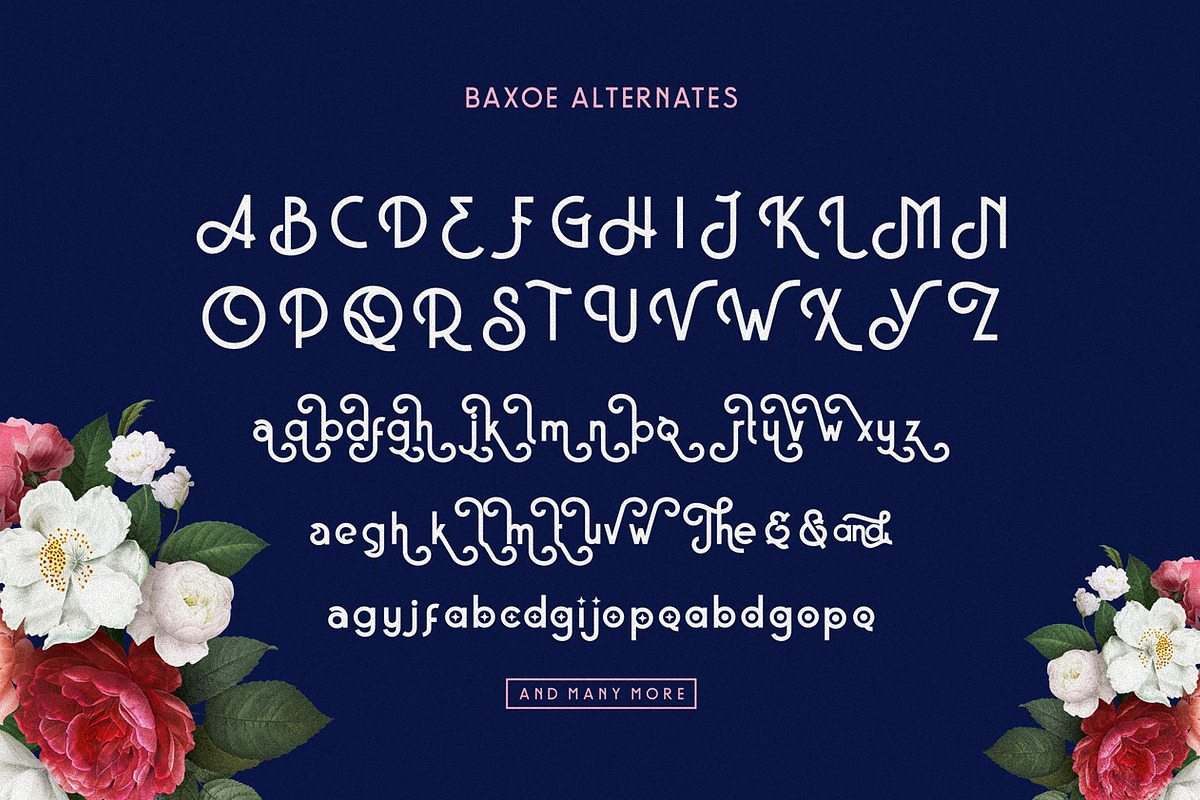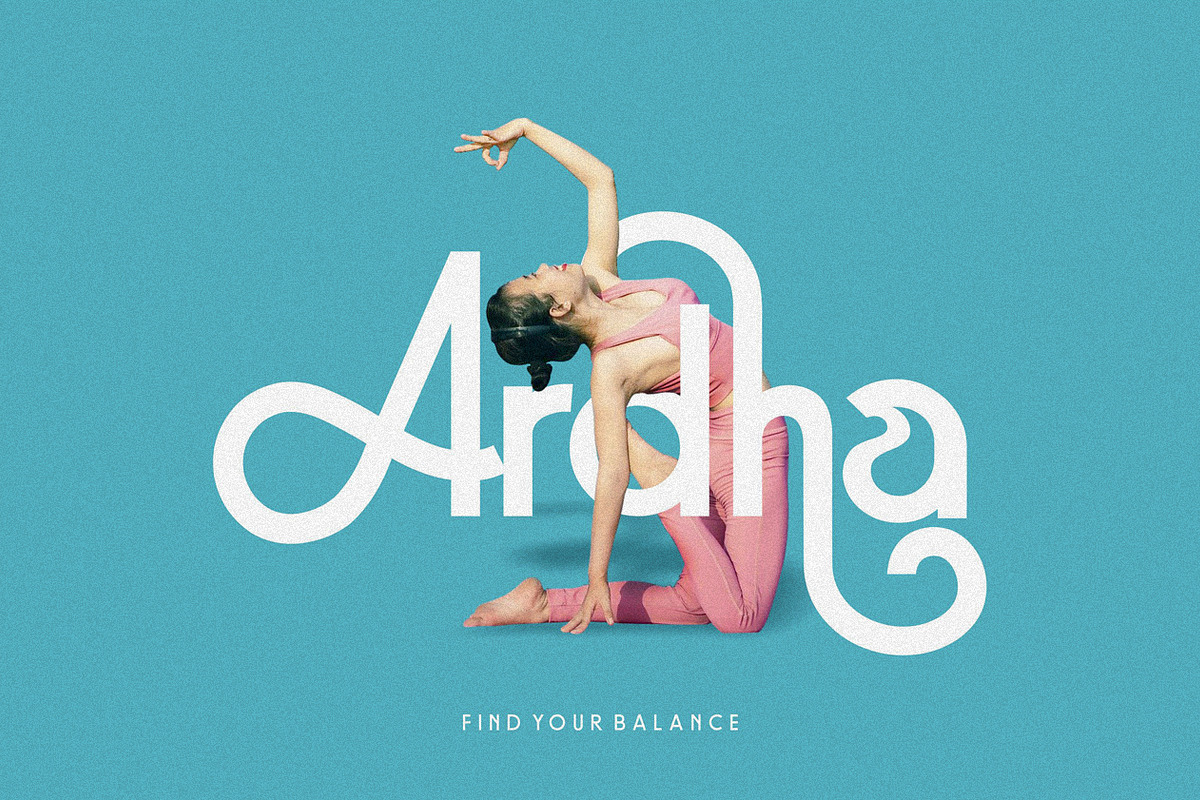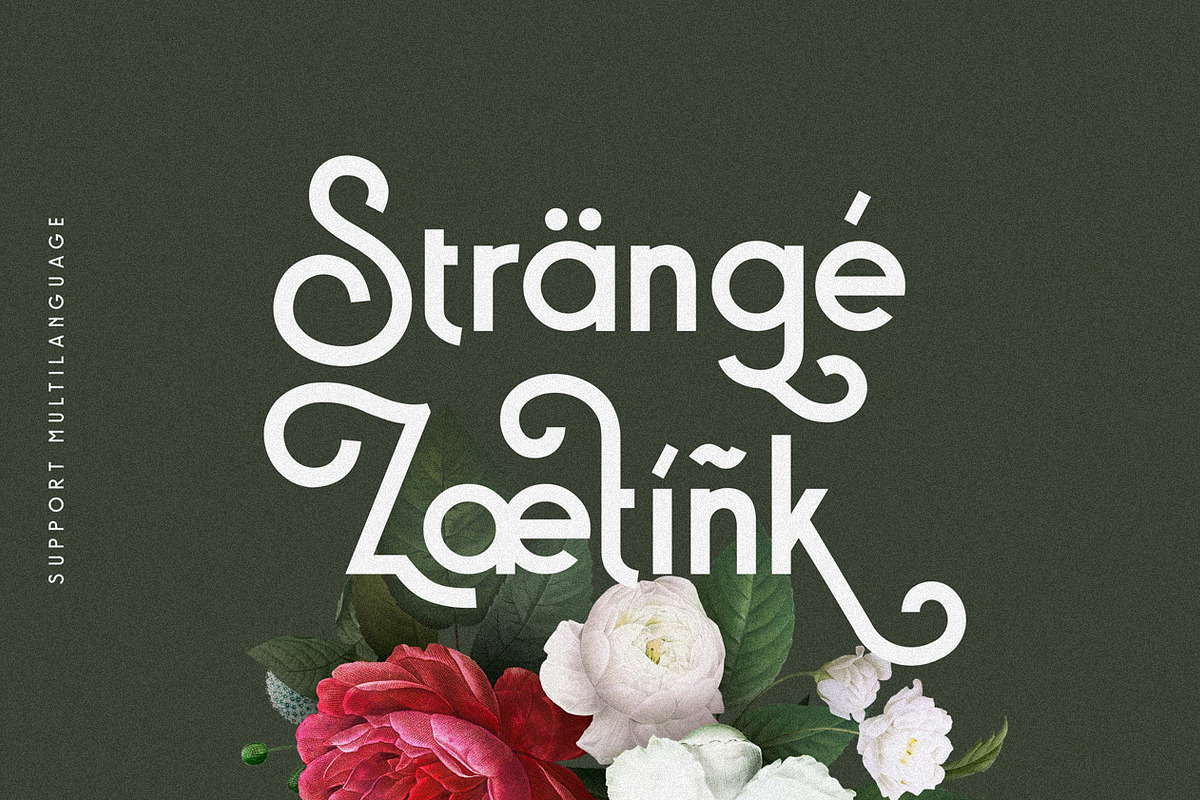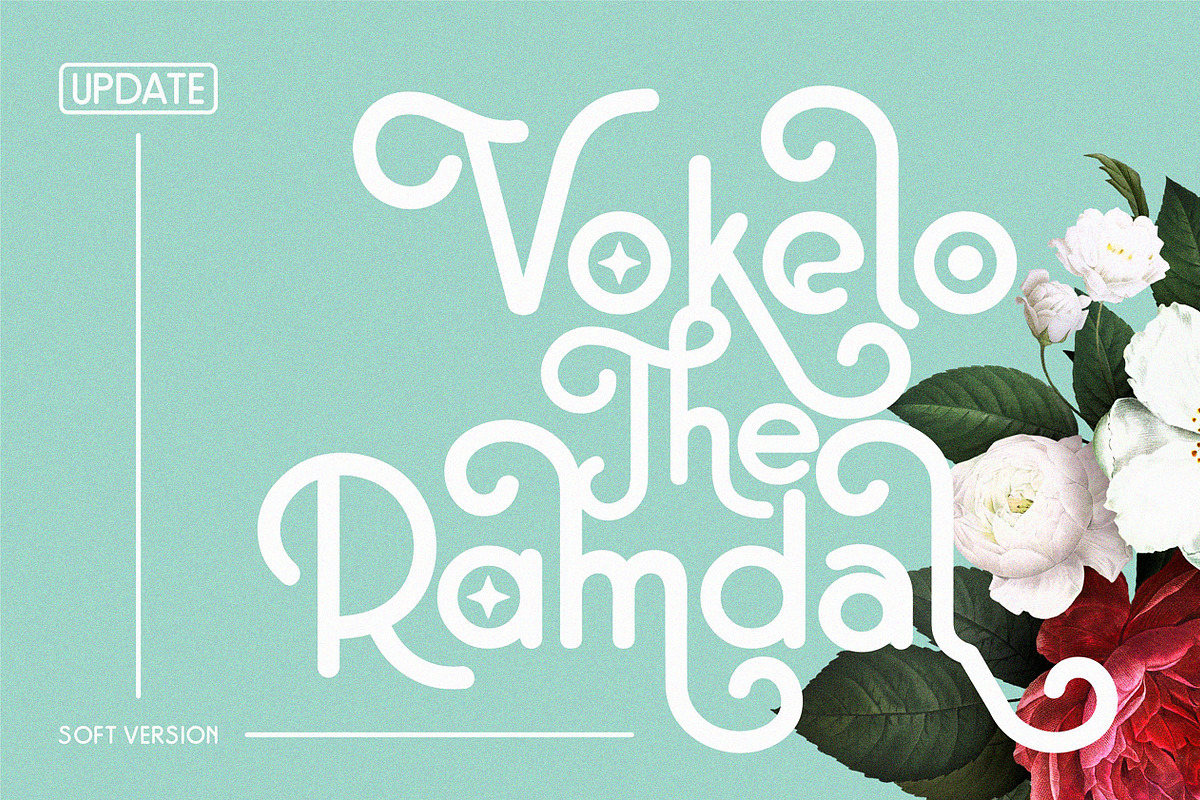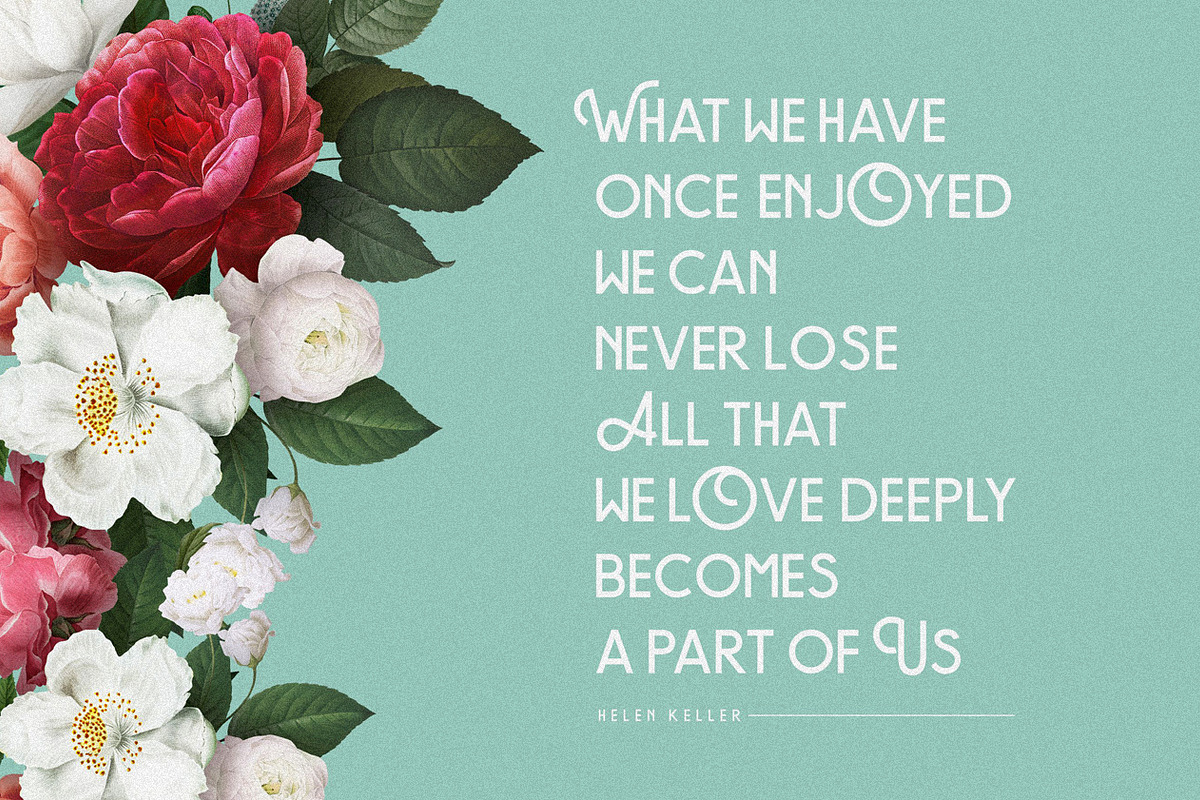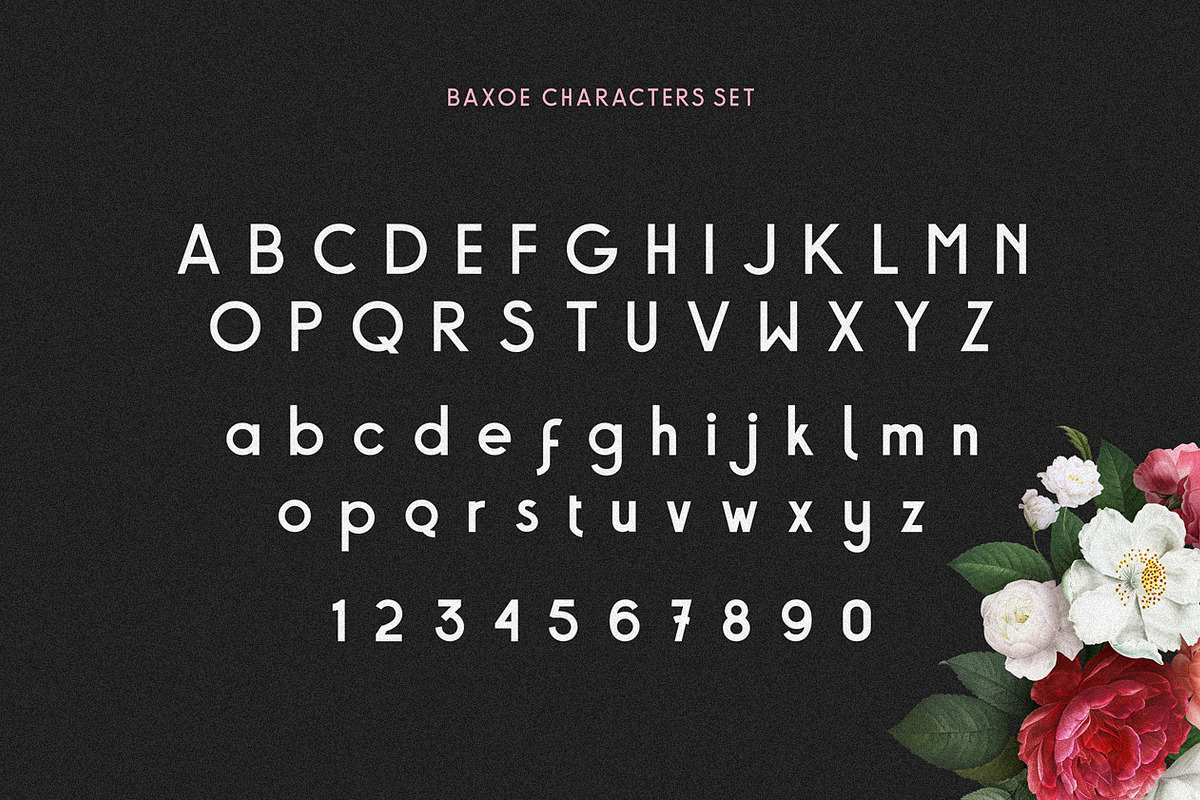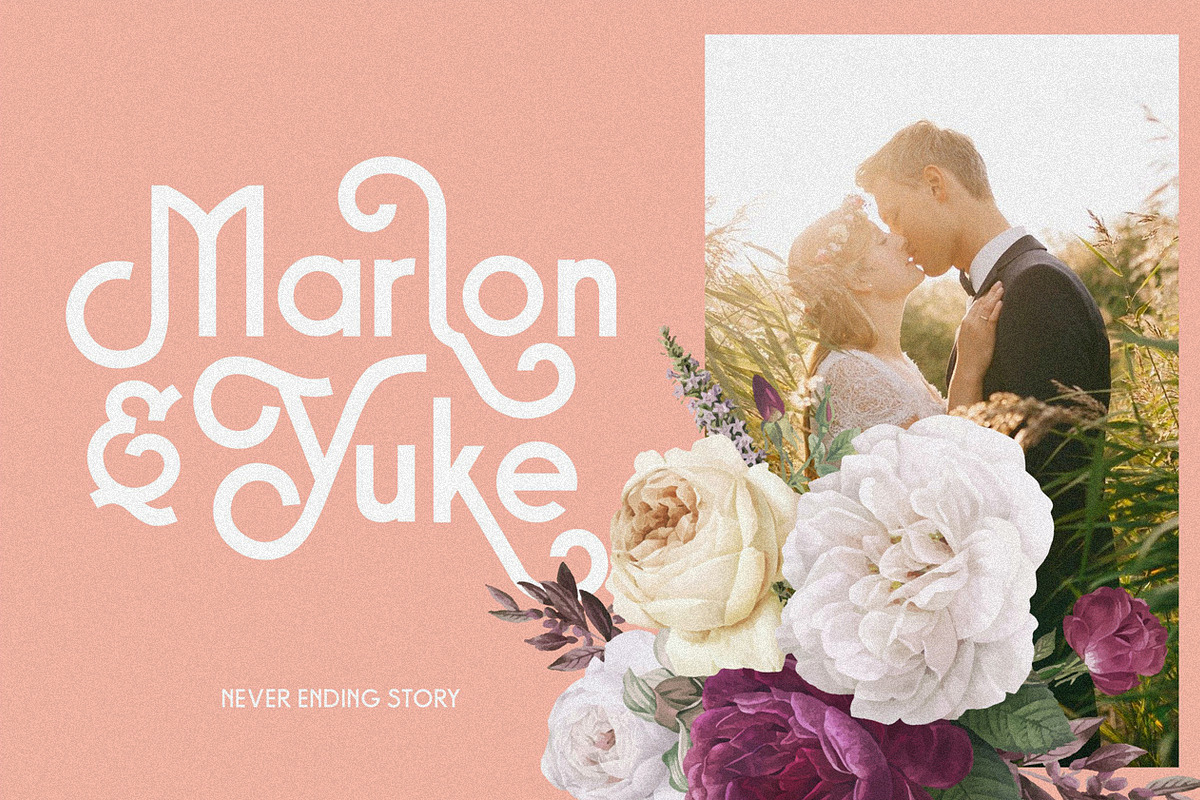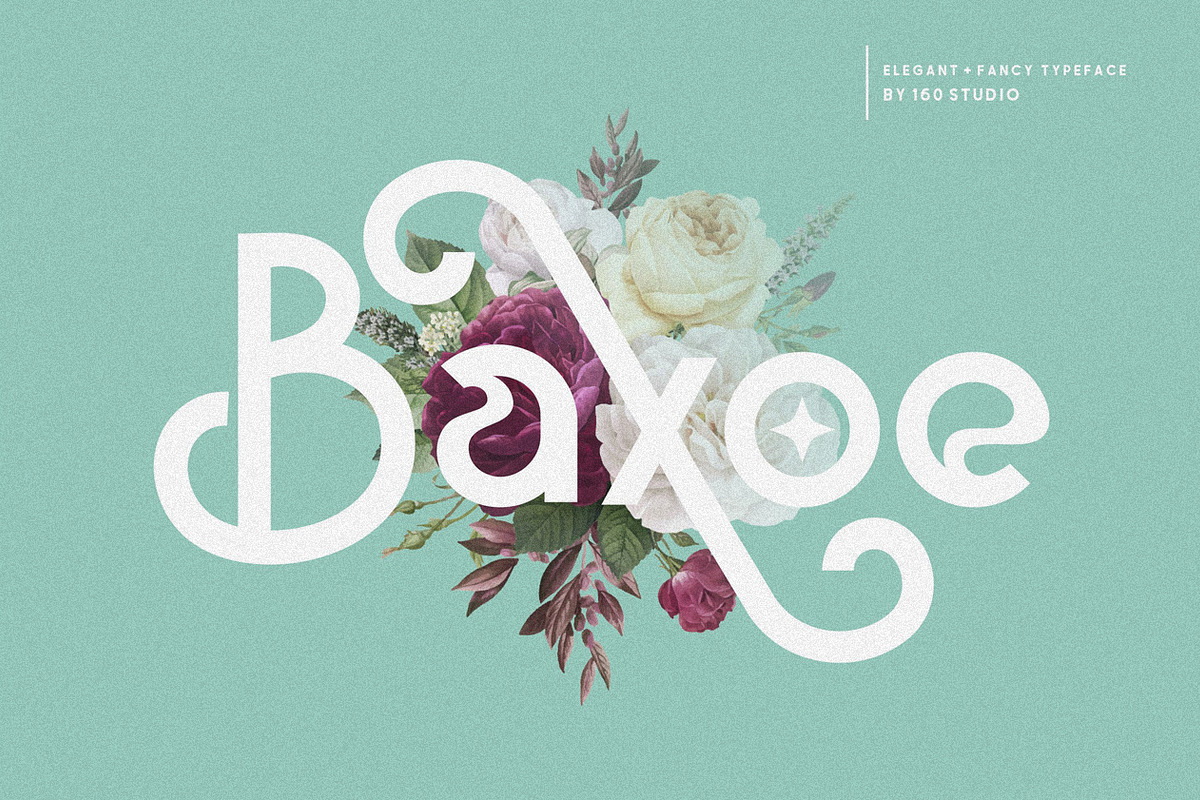
Baxoe | Elegant and Fancy Typeface
Introducing BAXOE - an Elegant and Fancy Typeface! With its simplicity and complexity, accentuated by numerous alternate characters, this font offers a unique touch to your designs.